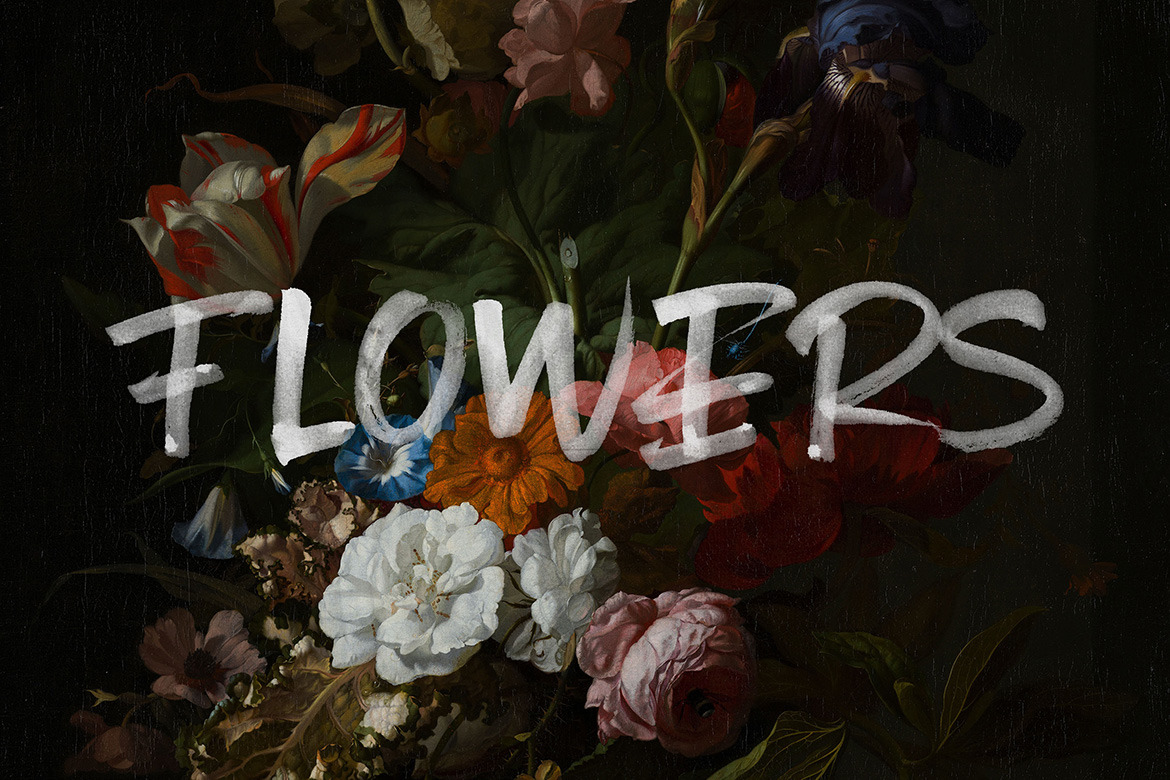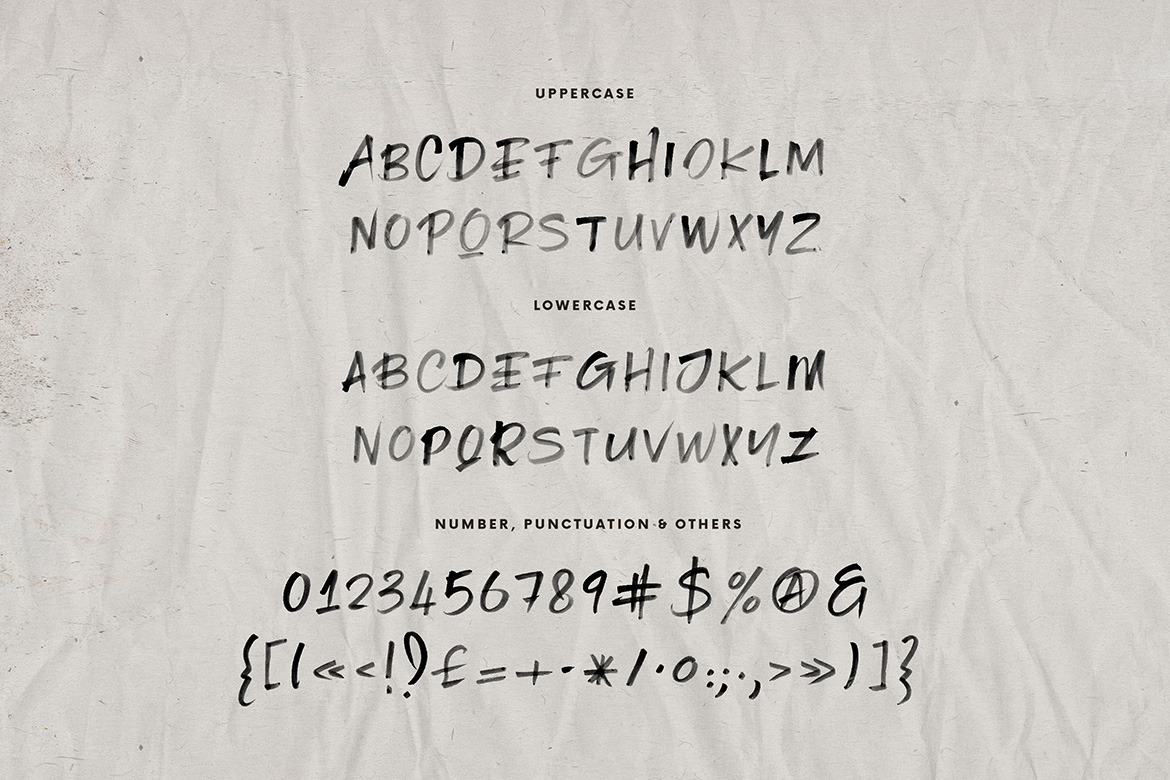
King Star Brush SVG Font
Brush, rough or grunge style sans serif display font for your new projects. Handwritten with bold watercolor marker. Great for grunge, urban or artistic projects!